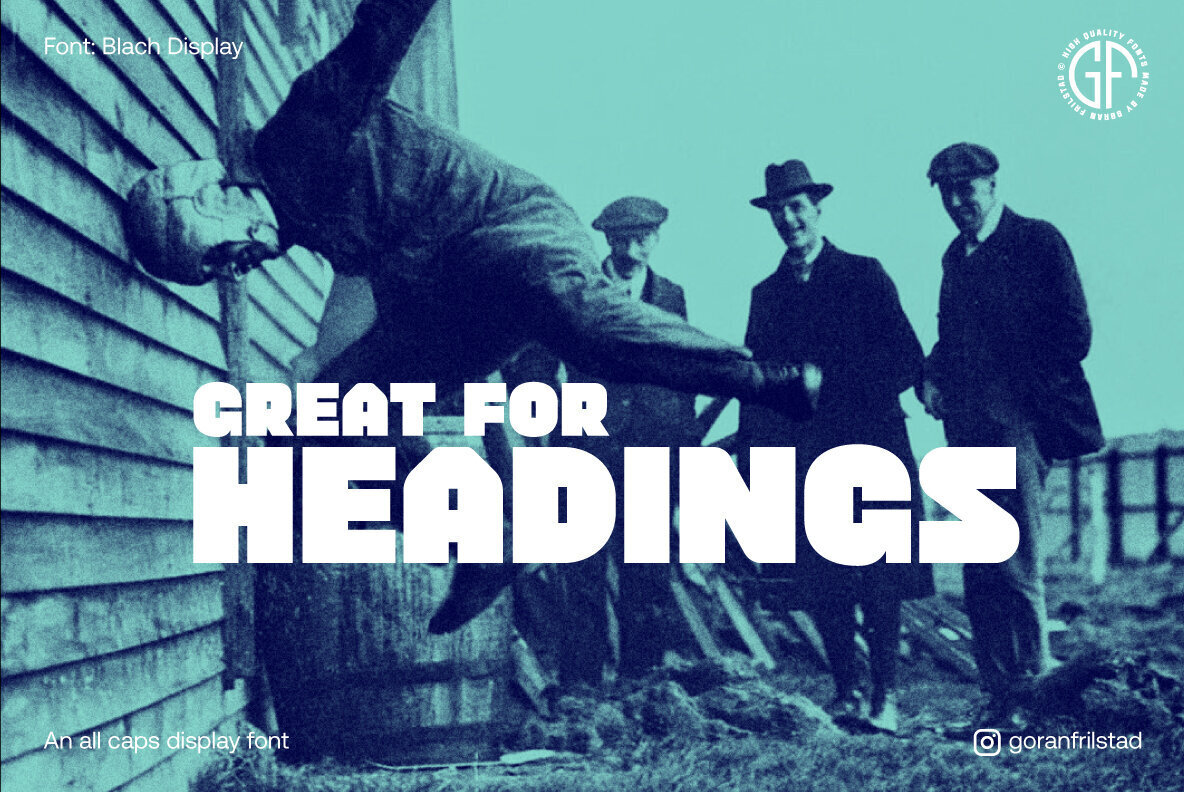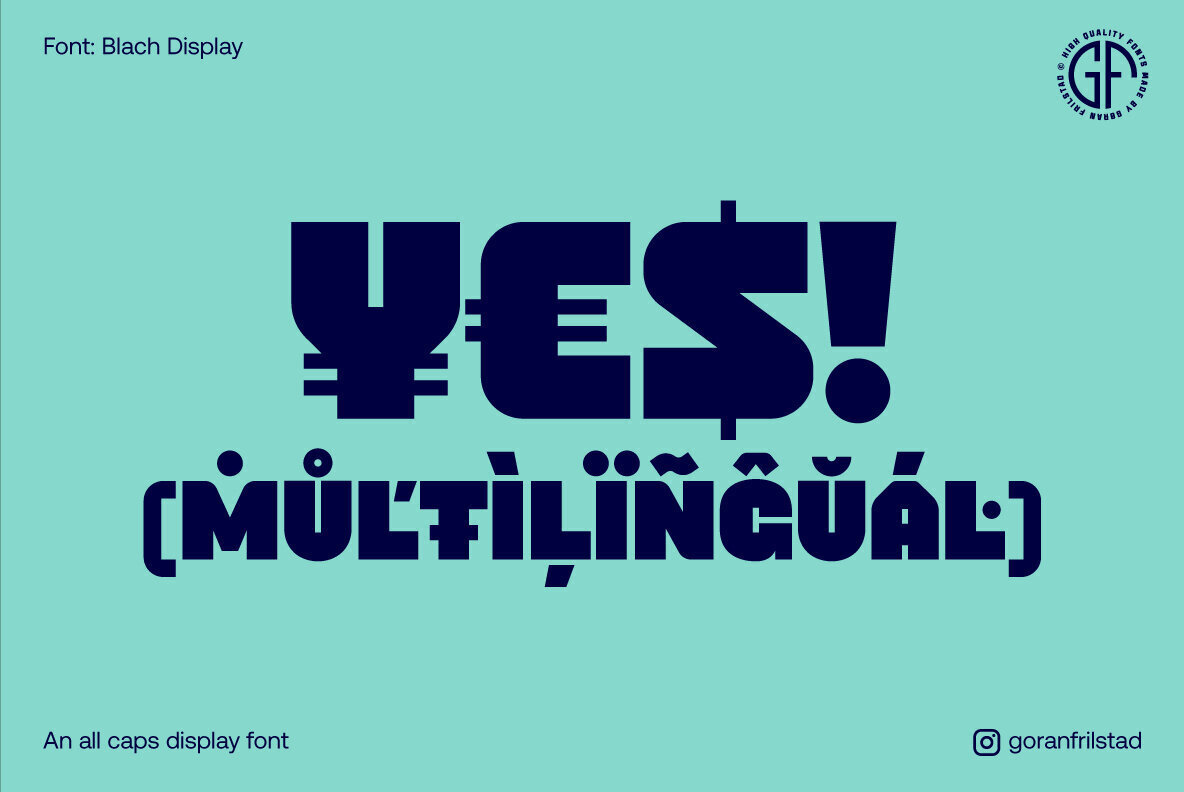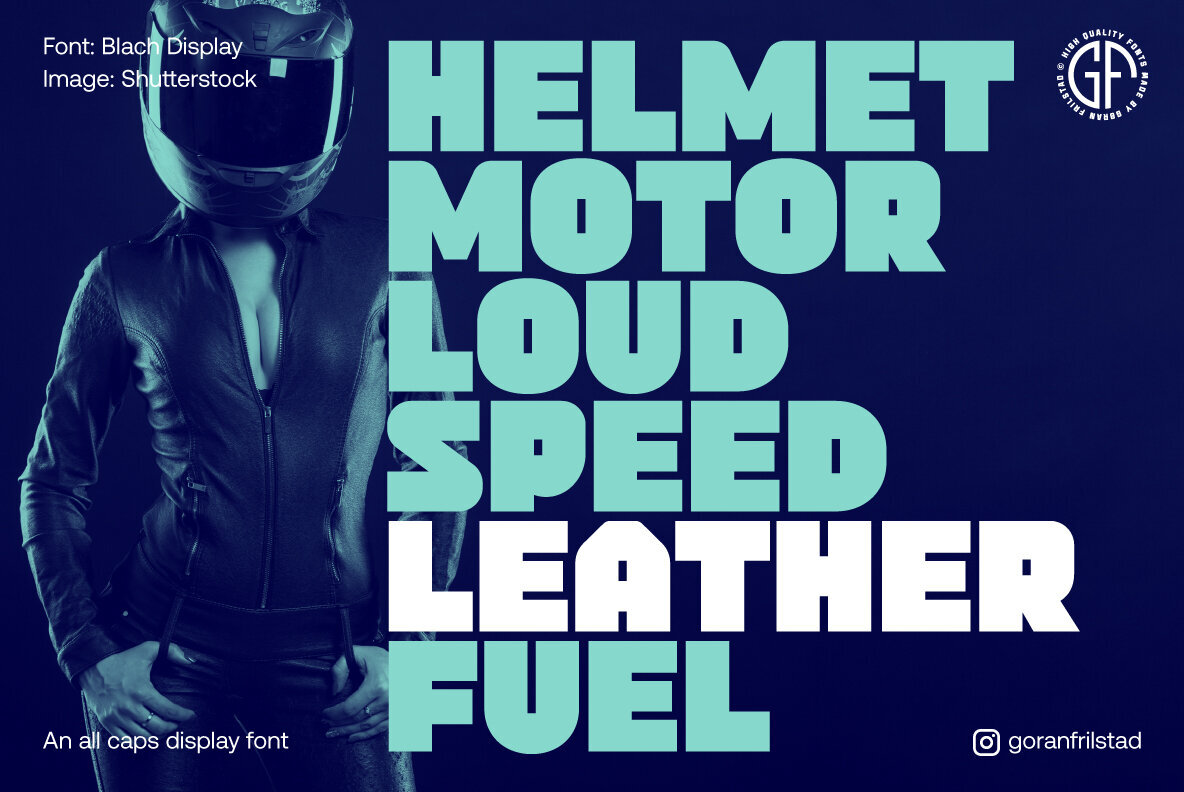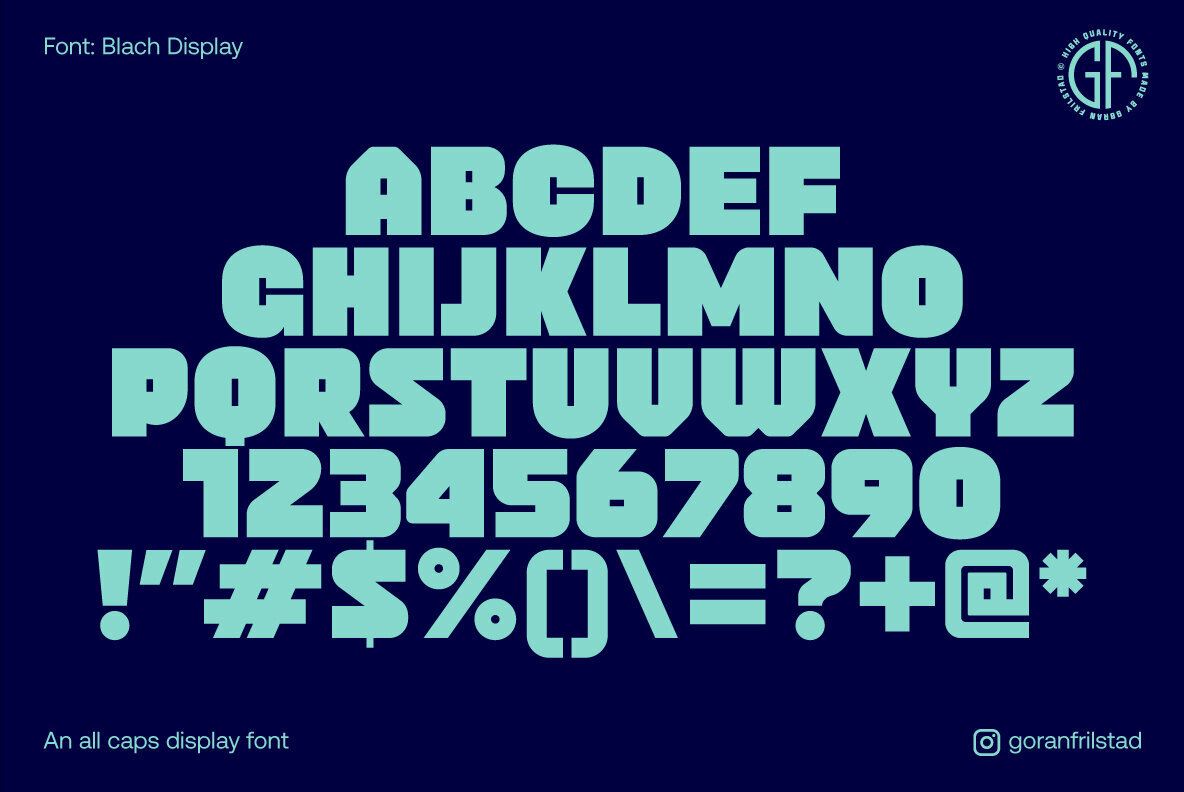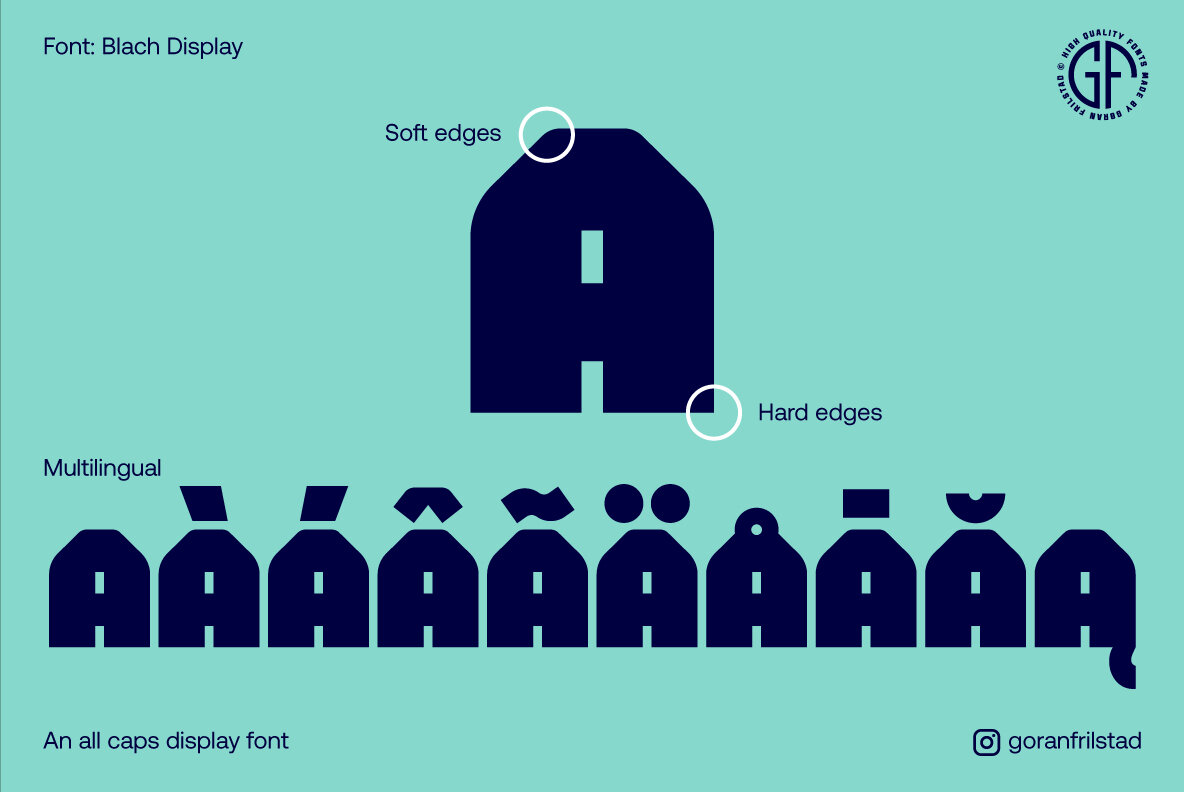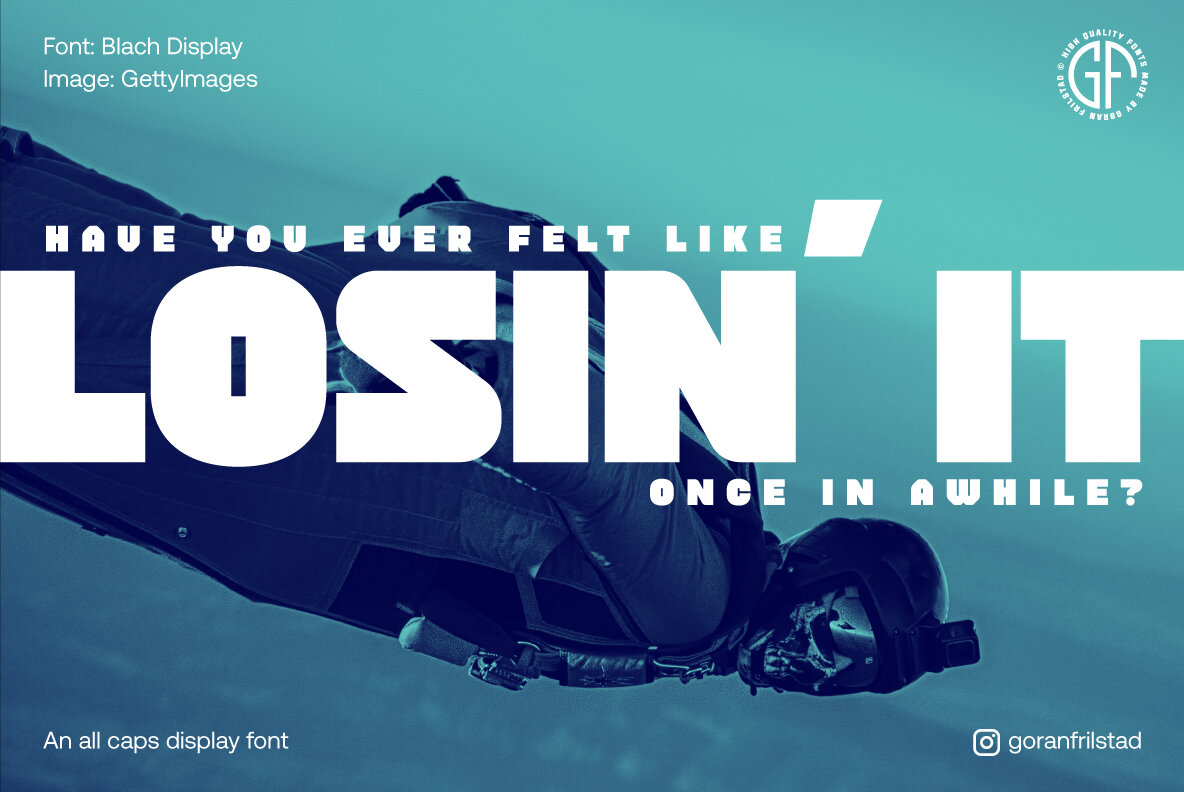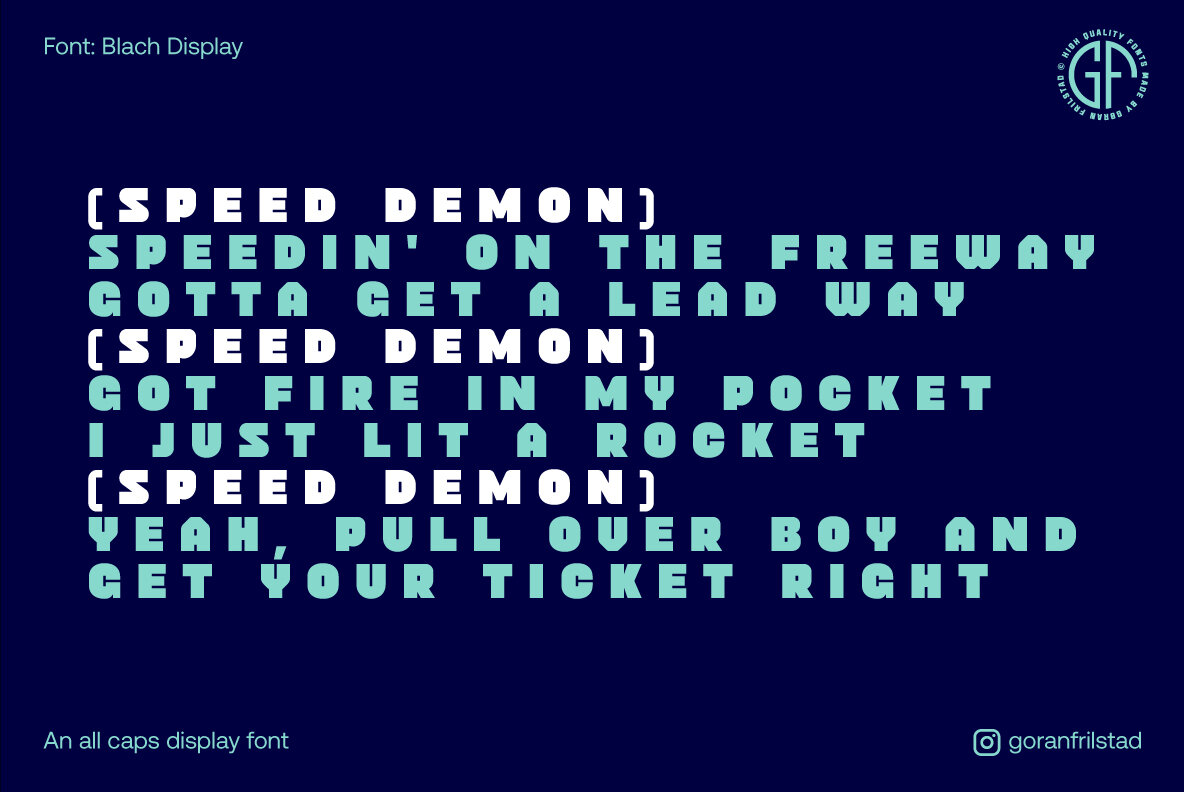
Blach Display Font
Blach Display
BlachDisplay is an extra bold display font perfect for making strong and powerful titles, headlines, logos and posters. The font has both sharp and rounded edges which gives it a modern and slightly retro feel.
The font is an all caps OpenType font with an extensive language support and has 193 glyphs all together.